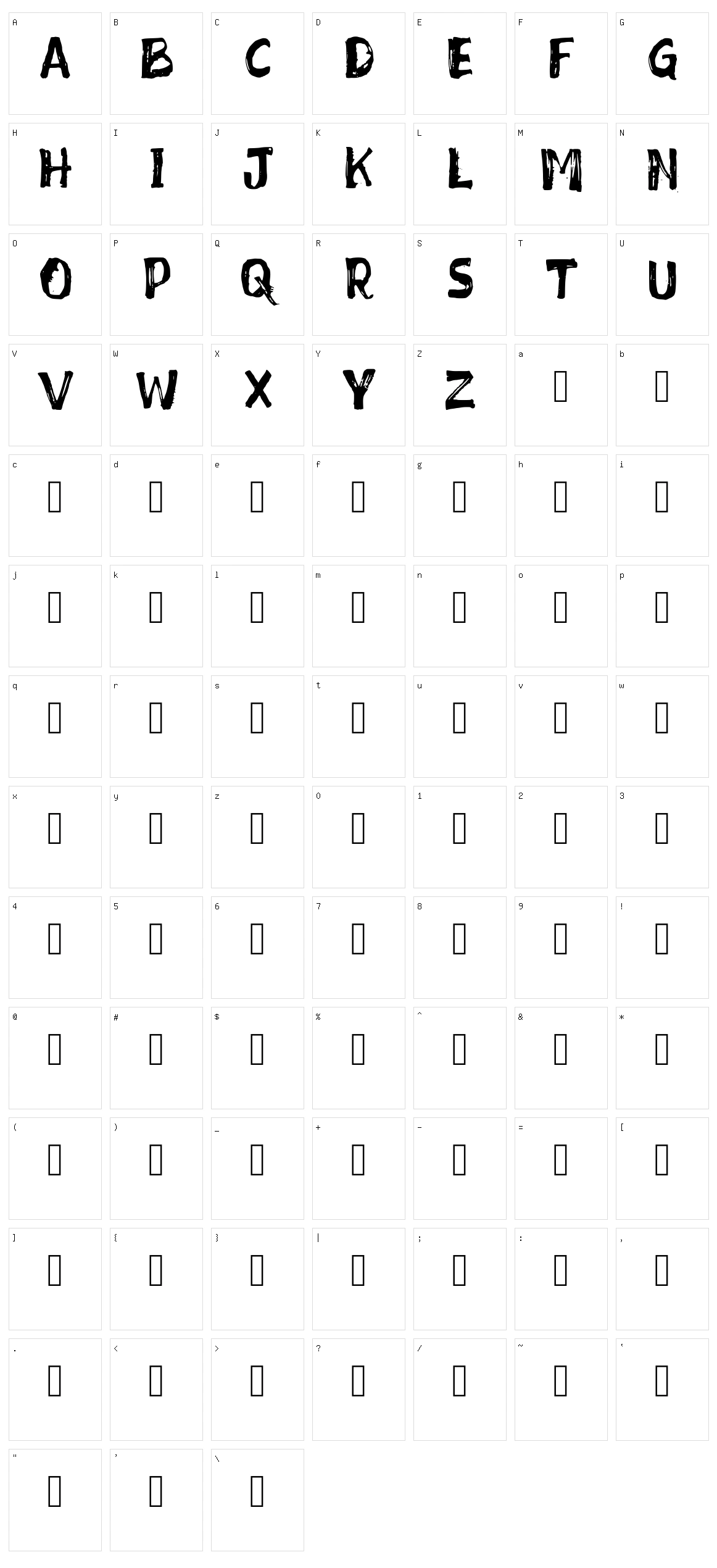
The free font Mixed Feeling is carefully designed by VitaminRGB, showcasing a thoughtful balance of creativity and usability and falls under the Eroded font style. When you download the ZIP file, it contains only 12.95 KB of font files, making it lightweight and quick to download. Please review the license details below to understand permitted usage and distribution rights. If license information is not available, we recommend using this font for personal projects only or contacting the author directly for commercial usage permissions.